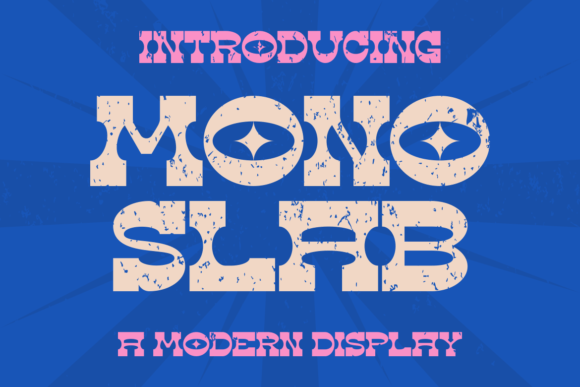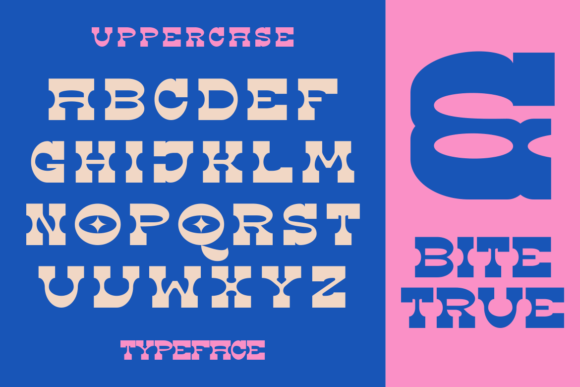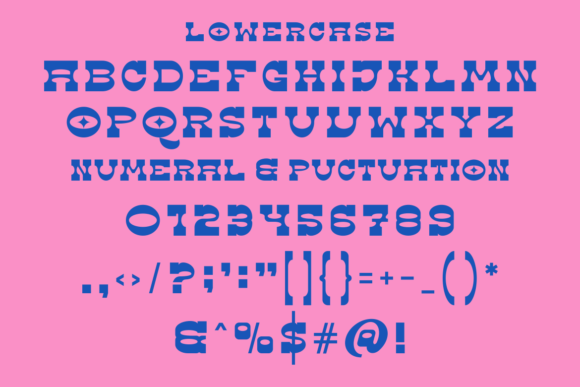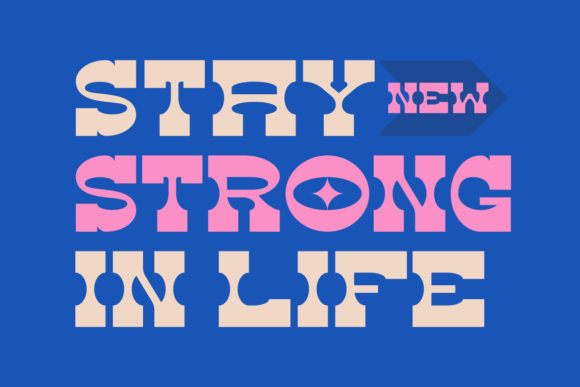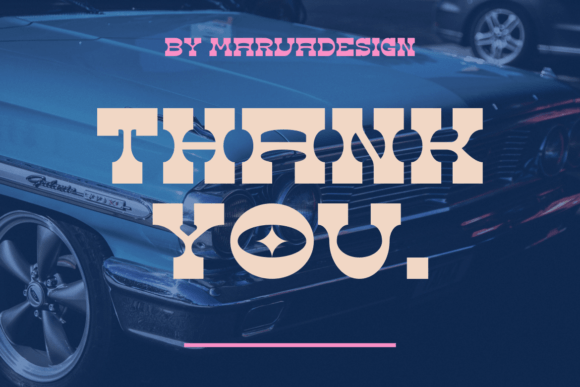
Mono Slab Font
About Mono Slab Font
Introducing our new product **Mono Slab Font** – Modern Font
Mono Slab Font** – Modern Font is a bold and authentic display font. The font is suitable for any branding project like logo, t-shirt printing, Product, and many more. outstanding in a wide range of contexts.